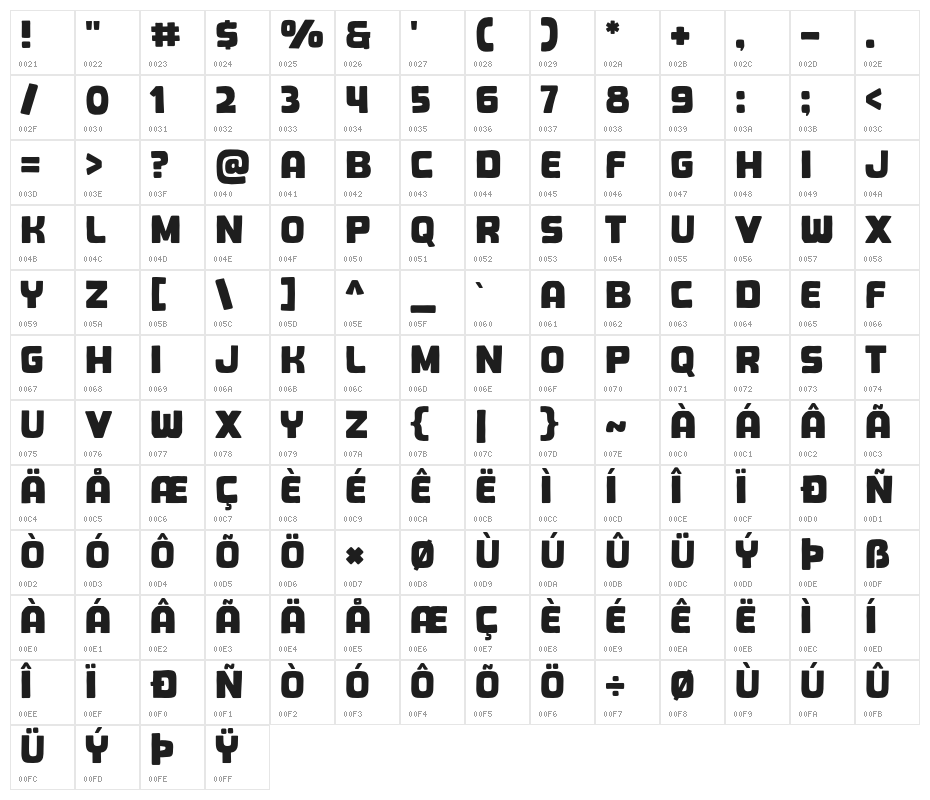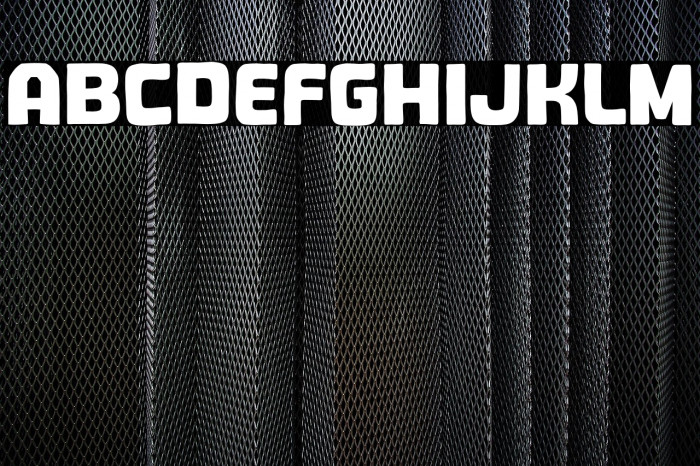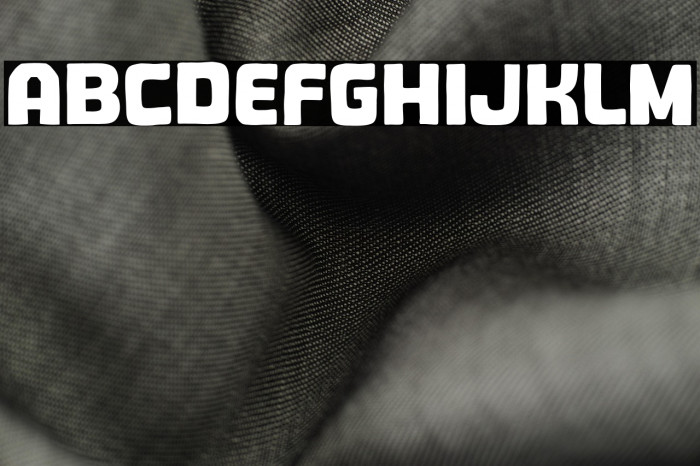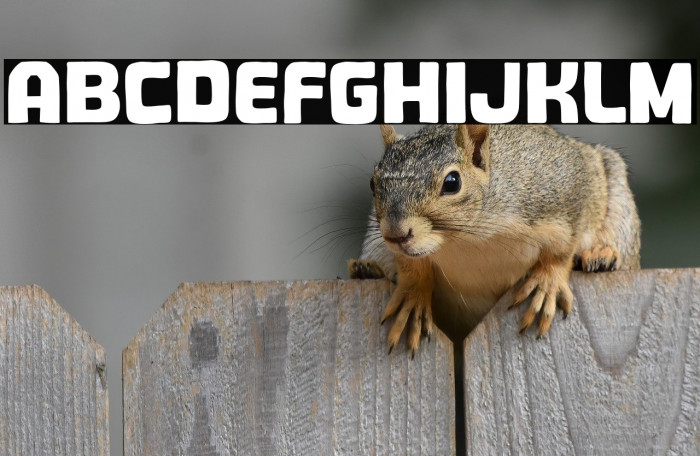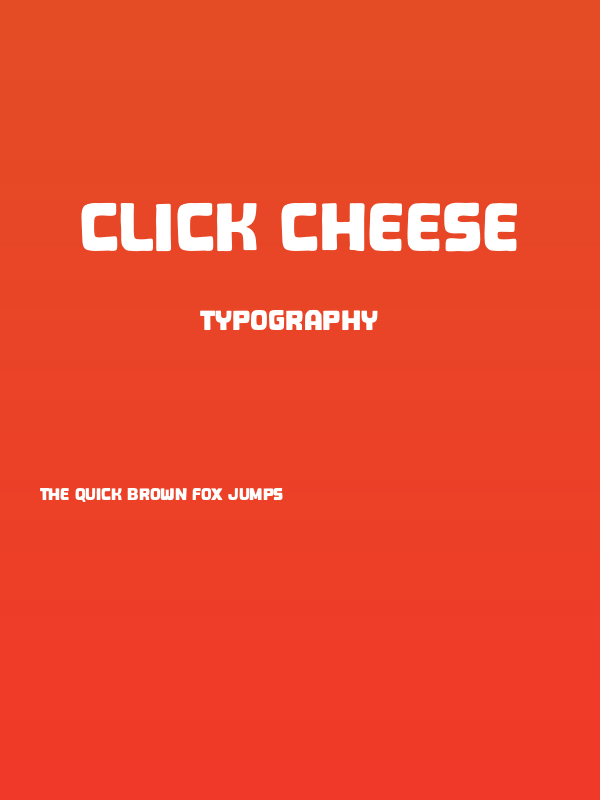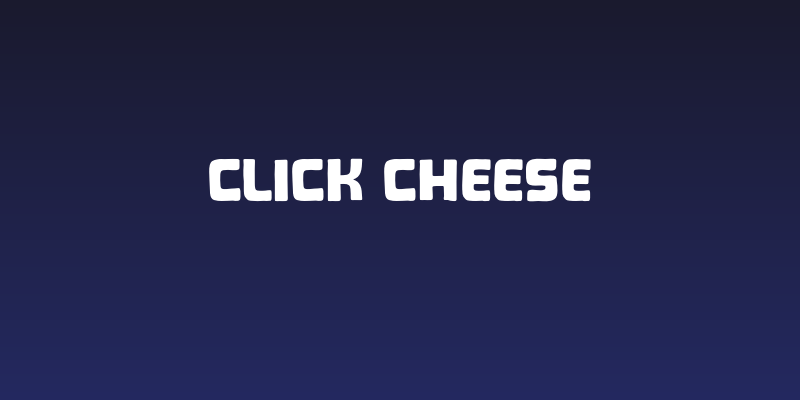
Click Cheese Font
Click Cheese Description
This font features bold, rounded characters with a playful and friendly appearance. The letters are thick and slightly condensed, giving them a strong presence. The rounded edges soften the overall look, making it approachable and suitable for casual or fun designs. The numbers and special characters maintain the same boldness and rounded style, ensuring consistency across all glyphs. The font's design is straightforward yet impactful, making it versatile for various creative applications.
Overall StylePlayful
Proposed ProjectsIdeal for children's books, playful branding, posters, and packaging designs.